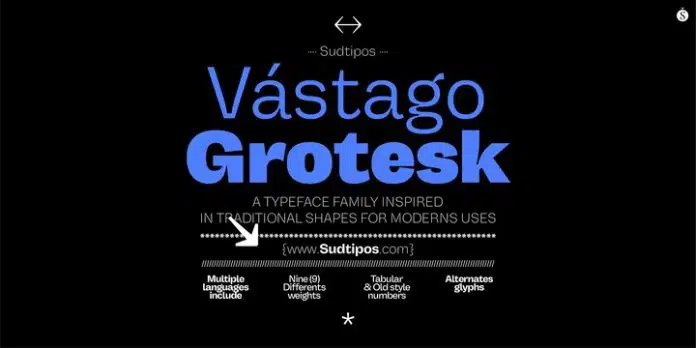
Vastago Grotesk Font
Vastago Grotesk Font is perfect for modern corporate identities, architectural firms, industrial design projects, tech startup branding, minimalist magazines, contemporary art galleries, professional presentations, urban signage systems, transportation graphics, pharmaceutical packaging, scientific publications, and cutting-edge digital interfaces.
What makes Vastago Grotesk Font exciting is its powerful geometric precision that embodies the purest principles of modernist typography through clean, uncompromising letterforms. This sophisticated typeface represents the evolution of classic grotesque design, combining rational structure with contemporary refinement that speaks to progressive audiences seeking clarity and functional beauty. The font's systematic approach and technical excellence make it ideal for projects requiring absolute precision and visual consistency. Its neutral yet distinctive character ensures maximum legibility while maintaining the authoritative presence essential for professional communication in technical and corporate environments.
The Vastago Grotesk Font family includes thin, light, regular, medium, bold, and black weights, each available with corresponding italic styles. The comprehensive family features condensed and extended variations, providing designers with complete typographic flexibility for complex information hierarchies and systematic brand applications.
Whether you're developing systematic brand identities, creating technical documentation, or designing contemporary corporate communications, Vastago Grotesk Font Free Download provides the rational clarity your professional projects demand. This premium typeface excels in environments where precision and systematic thinking are crucial for effective communication and brand credibility. The font's technical excellence works magnificently across digital platforms and print applications, making it an indispensable asset for designers serving corporate and technical markets. International corporations and design studios choose this font for its ability to communicate professionalism while maintaining perfect readability across cultures and languages. The extensive character set supports over 200 languages and includes specialized technical symbols, expanding its versatility for global corporate applications and multilingual technical communications. Professional typographers appreciate its systematic design approach and consistent performance across different media and applications. When you implement this exceptional typeface in your corporate communications, you're selecting a typography solution that embodies modern professionalism and systematic thinking, ensuring your brand communicates authority, precision, and reliability while maintaining the visual clarity essential for effective business communication in today's complex global marketplace and competitive corporate environment.